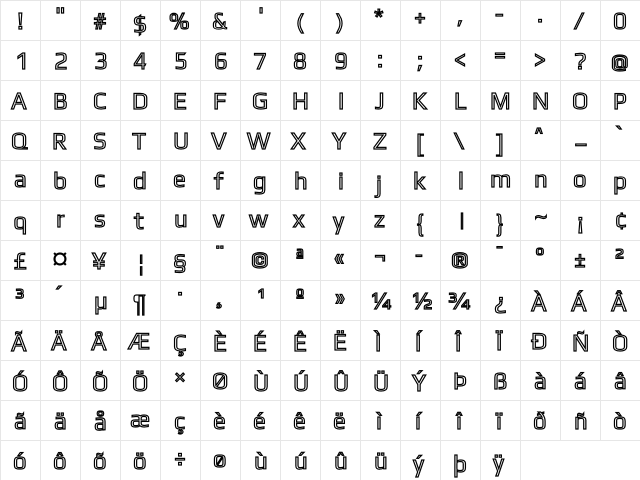
Gamestation Text Outline Regular
| Foundry | Jonas Hecksher, Playtype-types AS |
| Designer | Jonas Hecksher |
Design Context for Gamestation Text Outline Typeface
Gamestation Text Outline brings ornamental detail and strong personality to headlines and identities, where visual impact matters more than quiet functionality.
Font Pairing: Pair with a clean neutral sans-serif for body copy to let Gamestation Text Outline's character lead without overwhelming the composition.
Pro Tip: Use Gamestation Text Outline exclusively at display sizes — it was designed to be seen, not read at length. Let a neutral companion handle body copy.